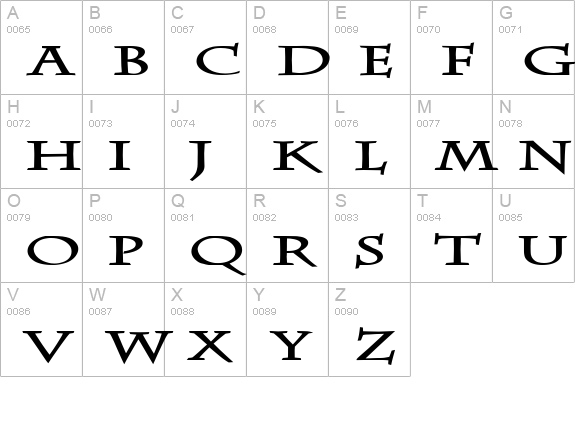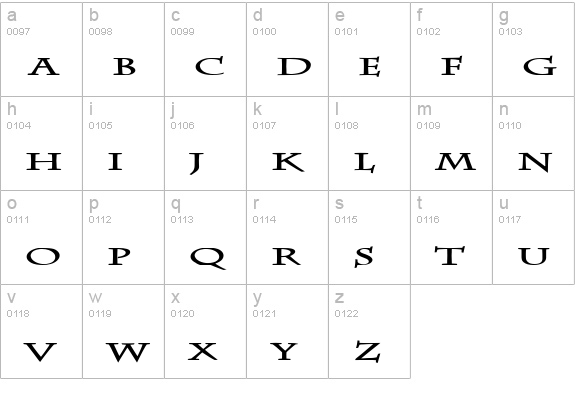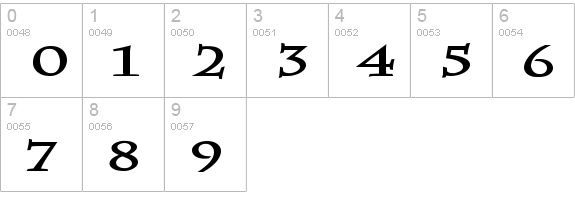
Chaz Extended Bold Font Details
Chaz Extended Bold is a strong, high-contrast, extended-width variant in the Chaz typeface family \xE2\x80\x94 well suited to headlines, attention-grabbing titles, and strong calls-to-action.
Chaz Extended Bold font is a striking and versatile typeface that exudes power and modernity. With its bold and commanding presence, this font is perfect for making a bold statement in your designs. The sharp angles and strong lines of Chaz Extended Bold give it a contemporary edge that is sure to catch the eye. What's even better is that Chaz Extended Bold is available for free download at FontsMarket.com. This means you can easily access this impressive font and use it in your projects without any cost. Whether you're designing posters, logos, or social media graphics, Chaz Extended Bold will add a touch of sophistication and impact to your work. Don't miss out on this fantastic opportunity to elevate your designs with Chaz Extended Bold font, available for free at FontsMarket.com.